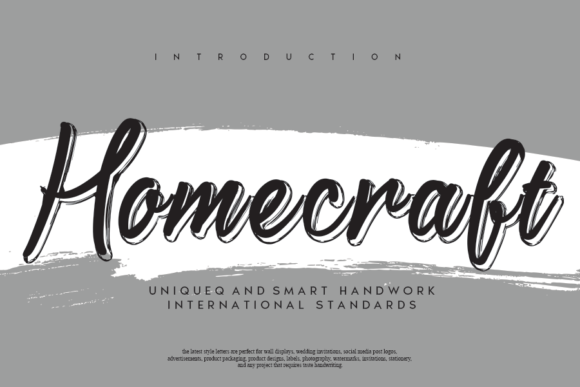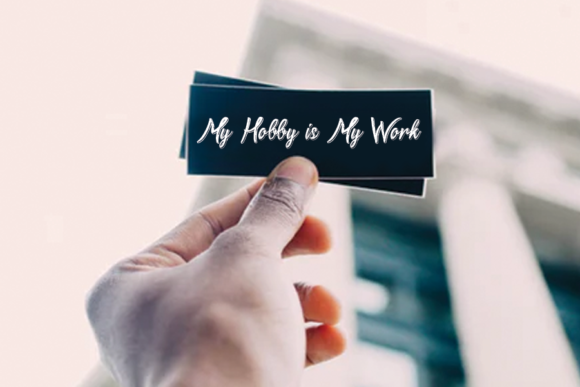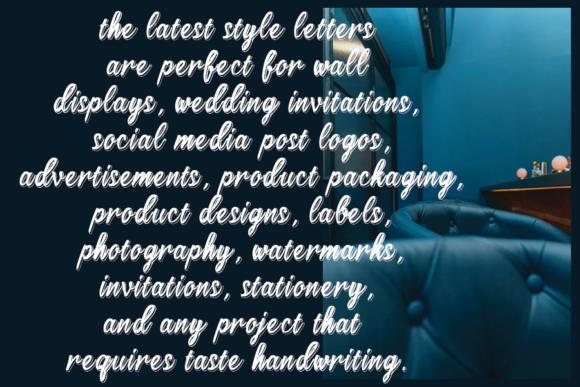
About Homecraft Font
Homecraft sounds like a beautiful and flowing handwritten font that can add an elegant and timeless touch to a variety of design projects. With its distinct style and versatility, Homecraft is the perfect choice for creating captivating and stunning designs. Here are some creative ideas on how to make the most of Homecraft’s flowing and elegant qualities:
1. Wedding Invitations: Use Homecraft to design elegant and romantic wedding invitations that reflect the timeless and sophisticated style of the occasion.
2. Thank You Cards: Create heartfelt and personalized thank you cards with Homecraft’s flowing and elegant handwriting to express gratitude with a touch of grace.
3. Quotes and Typography Art: Design beautiful typographic art featuring inspirational quotes or messages, showcasing Homecraft’s elegant and flowing glyphs.
4. Greeting Cards: Craft enchanting greeting cards for various occasions, such as birthdays, anniversaries, and holidays, using Homecraft’s elegant and captivating handwriting.
5. Branding and Logos: Utilize Homecraft in branding materials and logos to add a sense of elegance and sophistication to your brand identity.
6. Social Media Graphics: Create eye-catching and engaging social media posts with Homecraft to captivate your audience and convey your messages with style.
7. Handmade Crafts: Incorporate Homecraft’s elegant handwriting into handmade craft projects, such as scrapbooking, journaling, and DIY gifts.
8. Product Packaging: Use Homecraft on product packaging to add a touch of elegance and charm to your merchandise.
9. Calligraphy Art: Create captivating calligraphy art pieces or custom-made signs using Homecraft’s graceful and flowing font.
10. Personal Stationery: Enhance your personal stationery with Homecraft’s elegant and flowing handwriting to add a touch of sophistication to your correspondence.
11. DIY Home Decor: Design personalized wall art or framed prints with Homecraft to add an elegant and timeless touch to your living space.
12. Handwritten Notes: Personalize handwritten notes and letters with Homecraft’s flowing and elegant font for a more sentimental and memorable touch.
13. Craft Business Marketing: If you run a craft business or small creative enterprise, incorporate Homecraft into your marketing materials for a distinctive and artistic look.
14. Custom Gifts: Create custom gifts featuring Homecraft’s elegant handwriting for a truly one-of-a-kind present.
15. Party Invitations: Design charming and unique party invitations using Homecraft’s flowing and captivating handwritten font.
16. Personal Blog Design: Enhance your personal blog design with Homecraft’s expressive handwriting to create an inviting and captivating online presence.
17. DIY Calendars: Craft personalized DIY calendars with Homecraft’s elegant and flowing font for a touch of grace and sophistication throughout the year.
18. Recipe Cards: Add a touch of elegance to your recipe cards with Homecraft’s flowing and artistic handwriting.
19. Art Prints: Create art prints featuring delicate and timeless phrases or affirmations with Homecraft’s captivating and versatile font.
20. Custom Wedding Signage: Use Homecraft’s flowing and elegant handwriting to create custom wedding signage, such as welcome signs, seating charts, and table numbers.
Homecraft’s flowing and elegant style, along with its timeless and distinct appearance, make it a wonderful choice for a wide range of design projects. Whether you’re working on wedding invitations, branding, social media graphics, or handmade crafts, Homecraft’s graceful and captivating handwriting will elevate your designs to a new level of elegance and beauty.